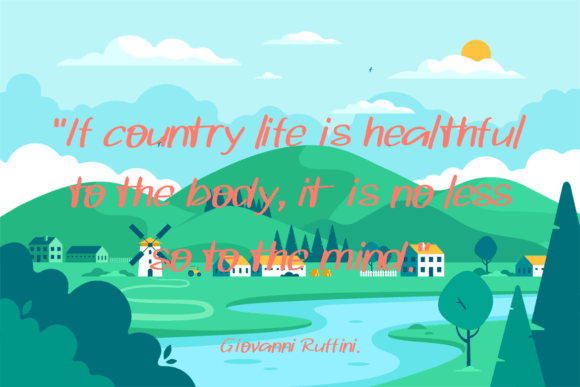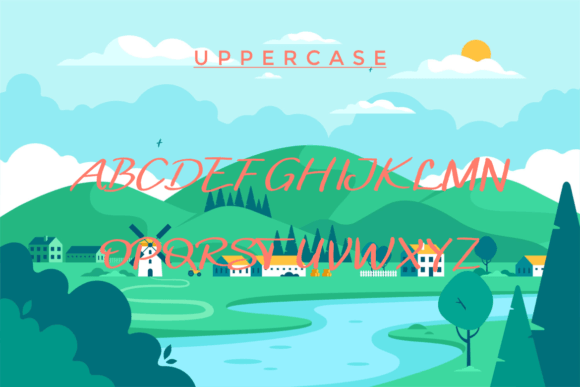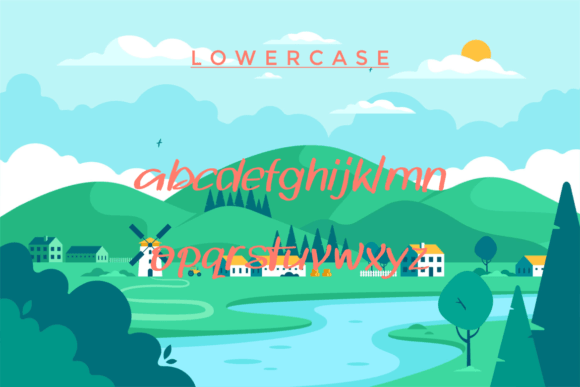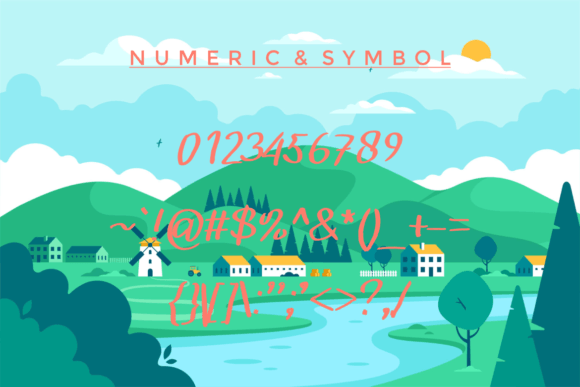
Introduction to Negeriku Font
Have you ever been in the midst of a creative project, pouring over design options, and suddenly, that perfect font clicks into place? For designers, finding the right font can be the difference between a good design and a great one. That’s why we’re excited to introduce the Negeriku Font, a high-quality handwriting brush font that’s about to take your designs to the next level.
With its transparent background and unique, original touch, the Negeriku Font is a game-changer for designers. Whether you’re working on a poster, magazine, or website, this font is the perfect design resource to add a touch of creativity and style. And the best part? It’s available for free download, making it a valuable addition to any designer’s toolkit.
Key Features of Negeriku Font
- High-quality typography with a unique, modern design aesthetic, perfect for creative projects.
- Comes with a transparent background, allowing for seamless integration into any design resource.
- Features a clean, minimalist design that’s ideal for use in logos, branding, and other visual identity projects.
- Resolution-independent, ensuring crisp and clear display at various sizes and resolutions.
- Designed to be highly legible, even at small font sizes, making it perfect for digital design applications.
Honest Review: Negeriku Font
I recently stumbled upon the Negeriku Font and was excited to give it a try for my creative project. As a designer, I appreciate high-quality fonts that can elevate my designs to the next level.
The Negeriku Font is a great addition to any design resource collection. It features a unique and modern aesthetic that can add a touch of sophistication to any text-based design. The font also comes with a transparent background, making it easy to customize and integrate into your design.
Here are some things that work well with the Negeriku Font:
- ✨ Unique and modern design aesthetic
- ✨ High-quality font that looks great in various sizes and resolutions
- ✨ Transparent background for easy customization
- ⚠️ Limited font sizes and weights available (more variety would be nice)
- ⚠️ Not ideal for very large or complex text-based designs (requires some tweaking)
Overall, I’m impressed with the Negeriku Font and would definitely recommend it as a free download for any designer looking for a high-quality, modern font. With a little tweaking, it can be a great addition to your design resource collection.
Tips for Getting the Most Out of Negeriku Font
Experiment with different font sizes and styles to add visual interest to your design. Use Negeriku Font in combination with other design elements to create a unique and creative project.
Negeriku Font is suitable for a variety of creative projects, including infographics, posters, and social media graphics. Its high-quality design makes it an ideal choice for designers who want a free download that will enhance their designs.